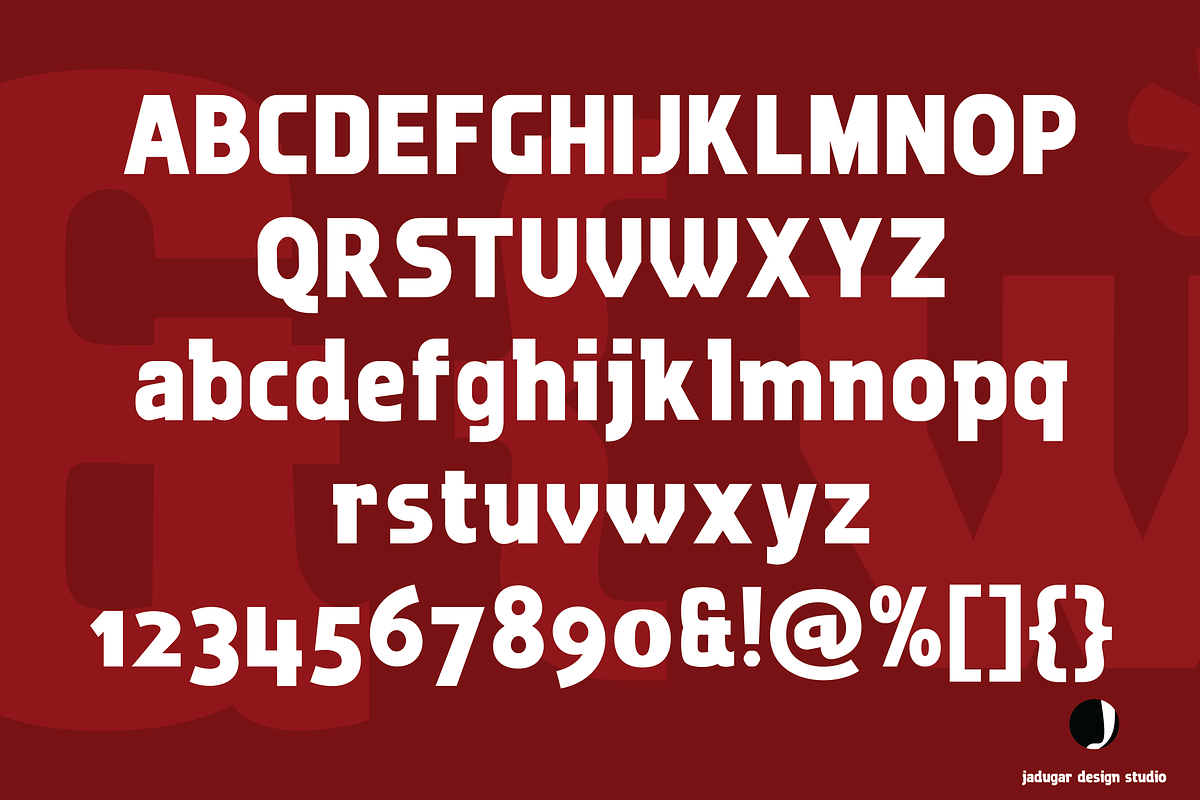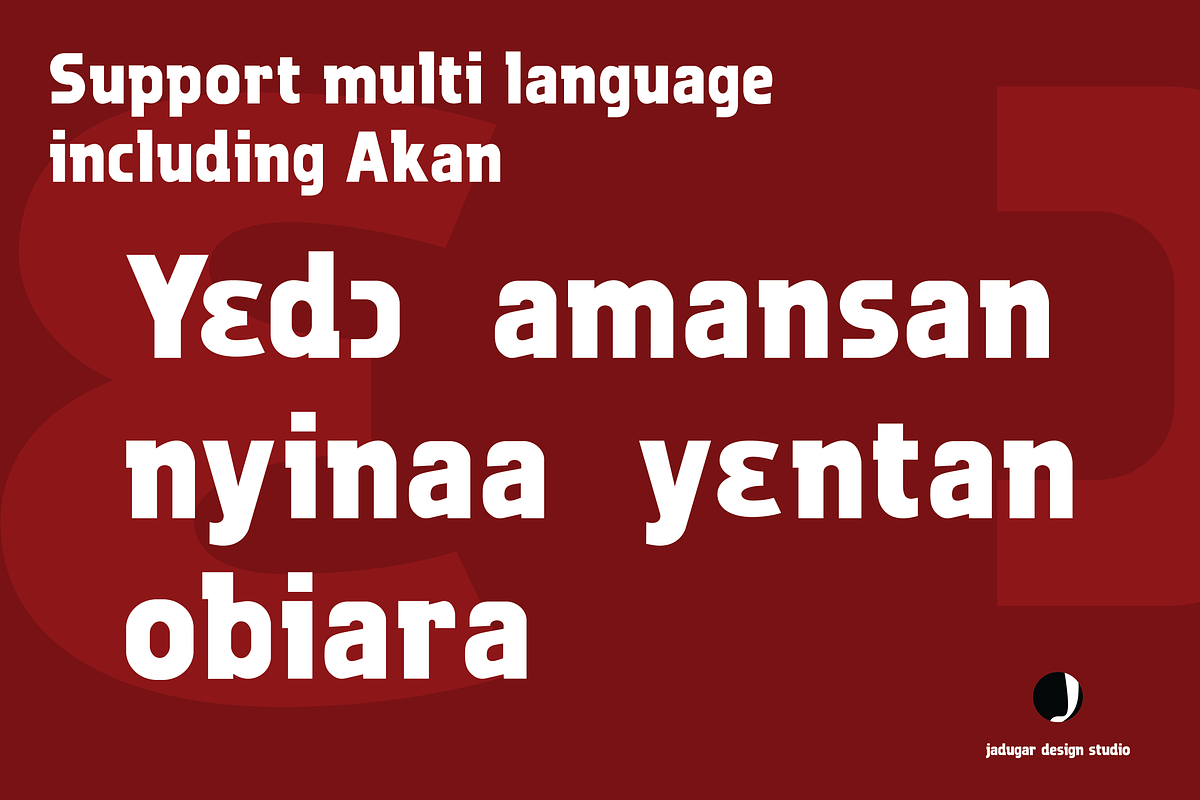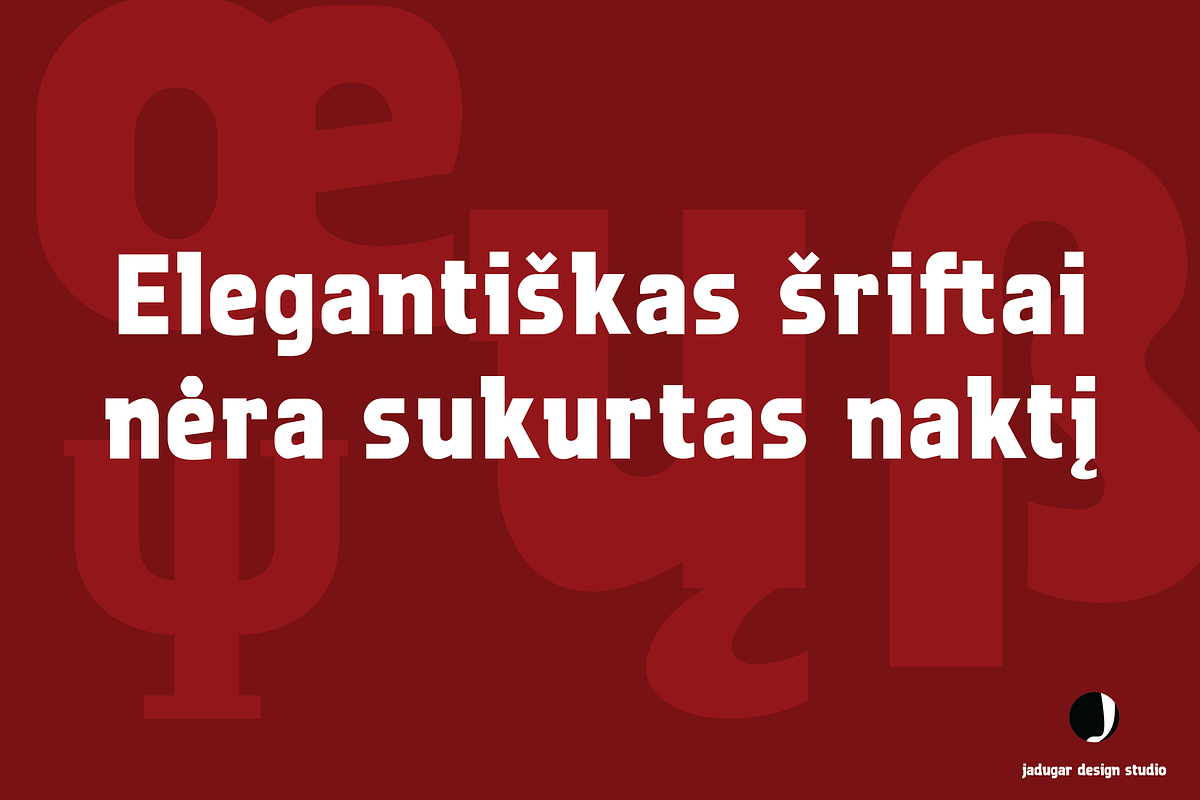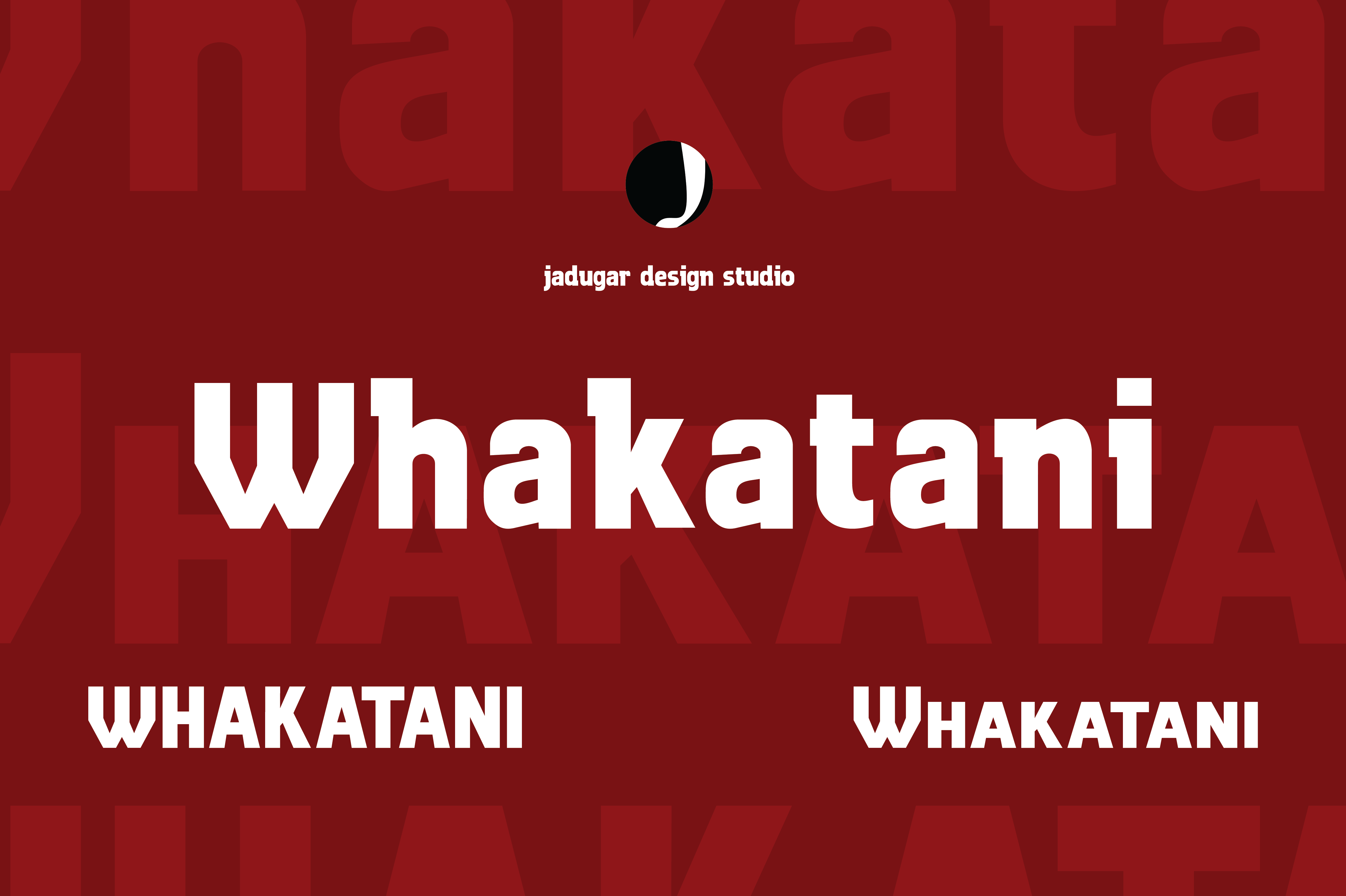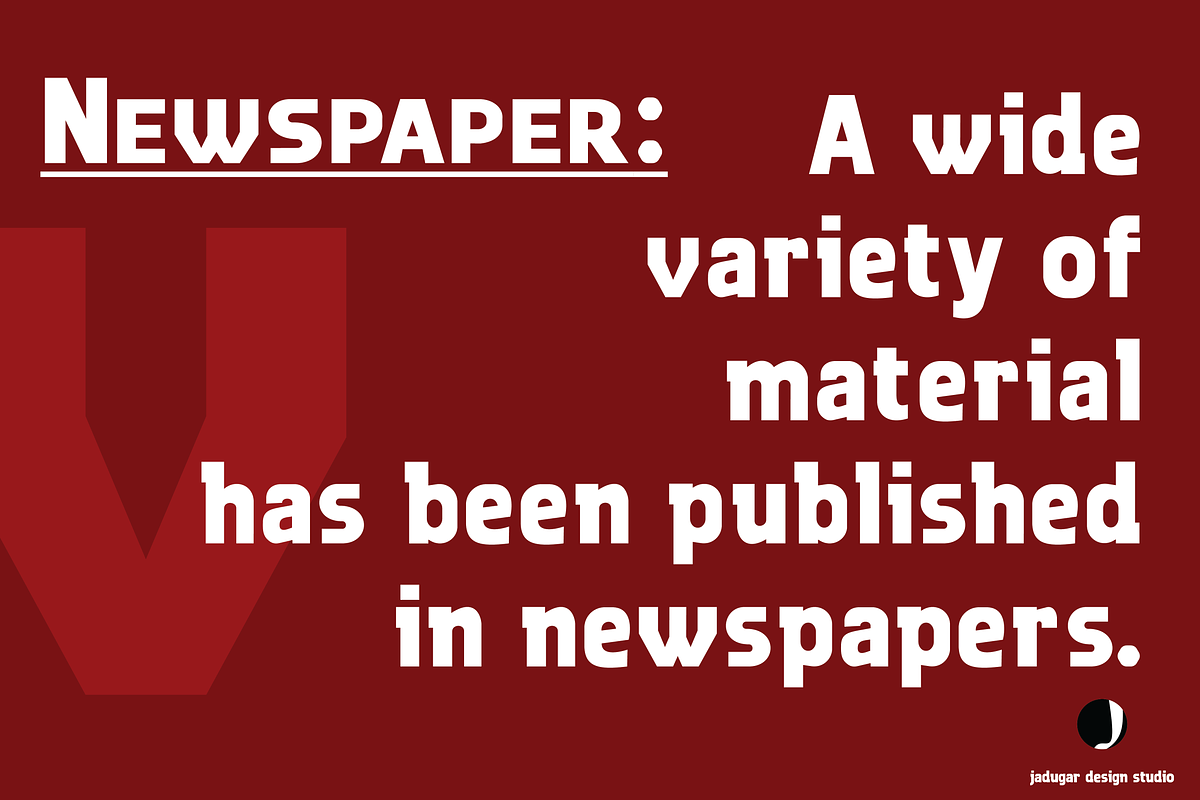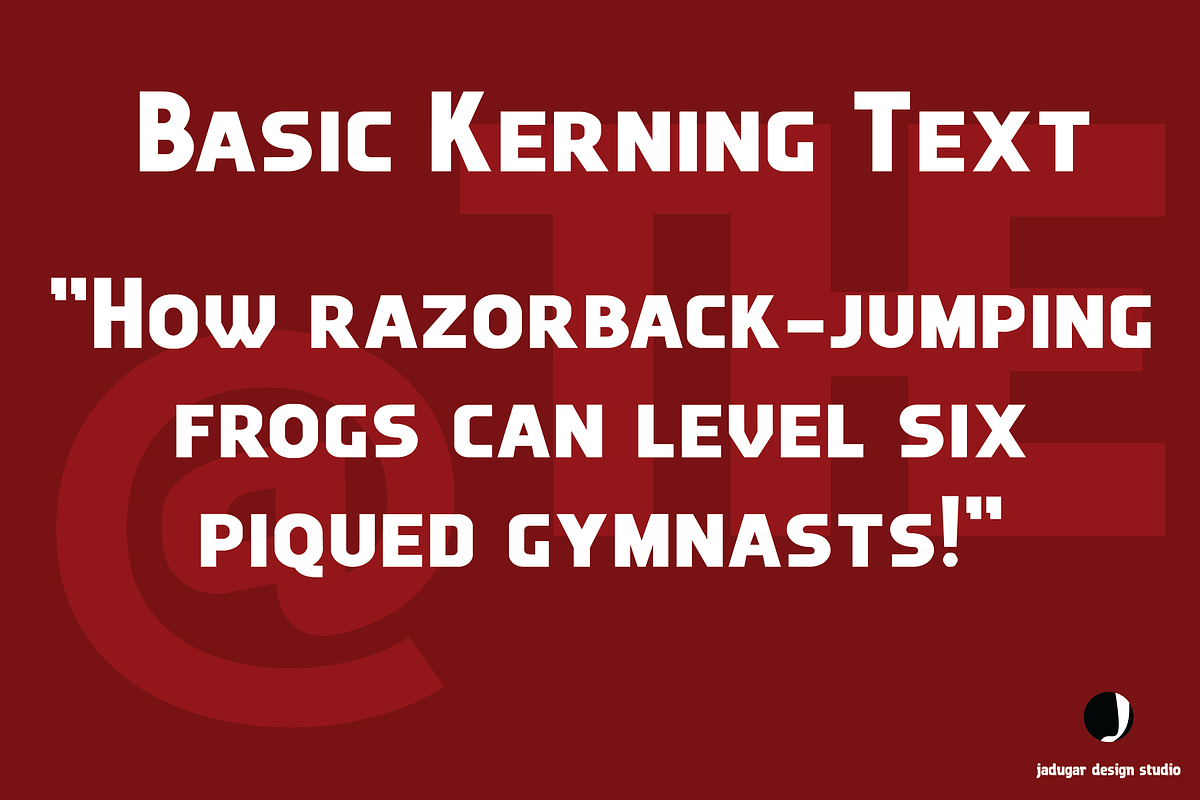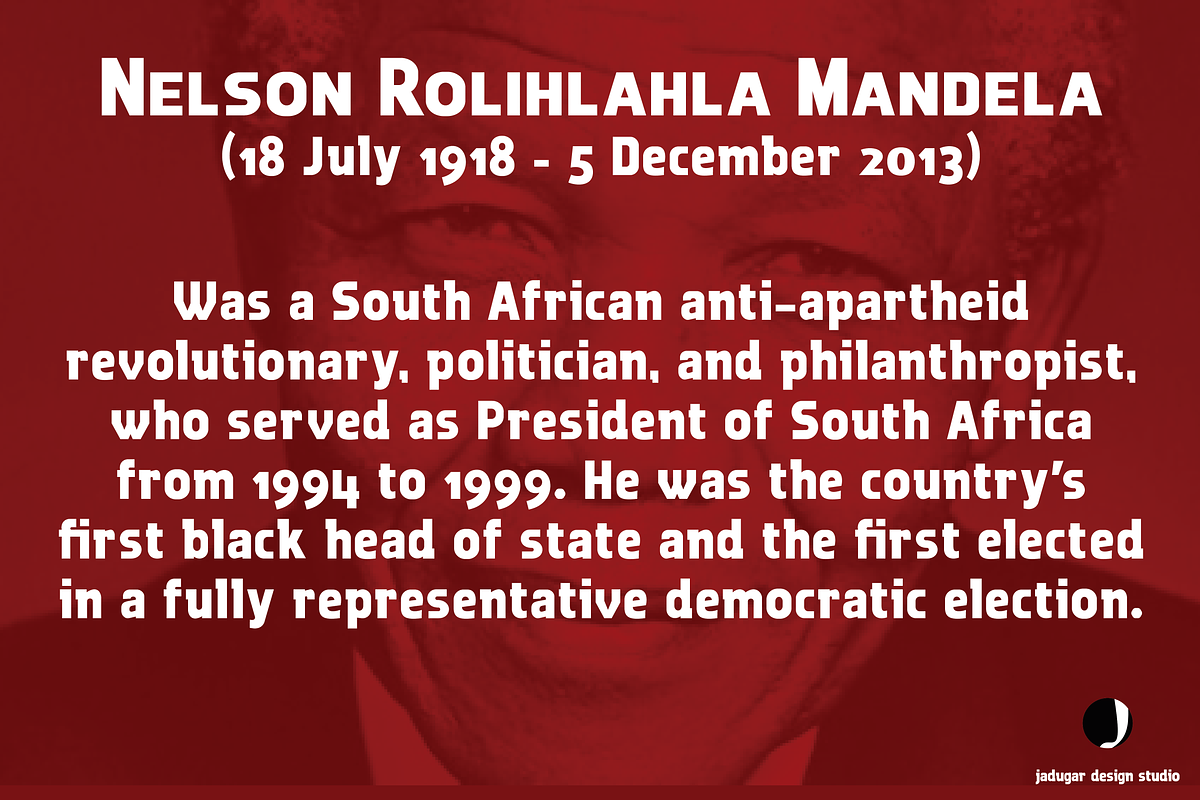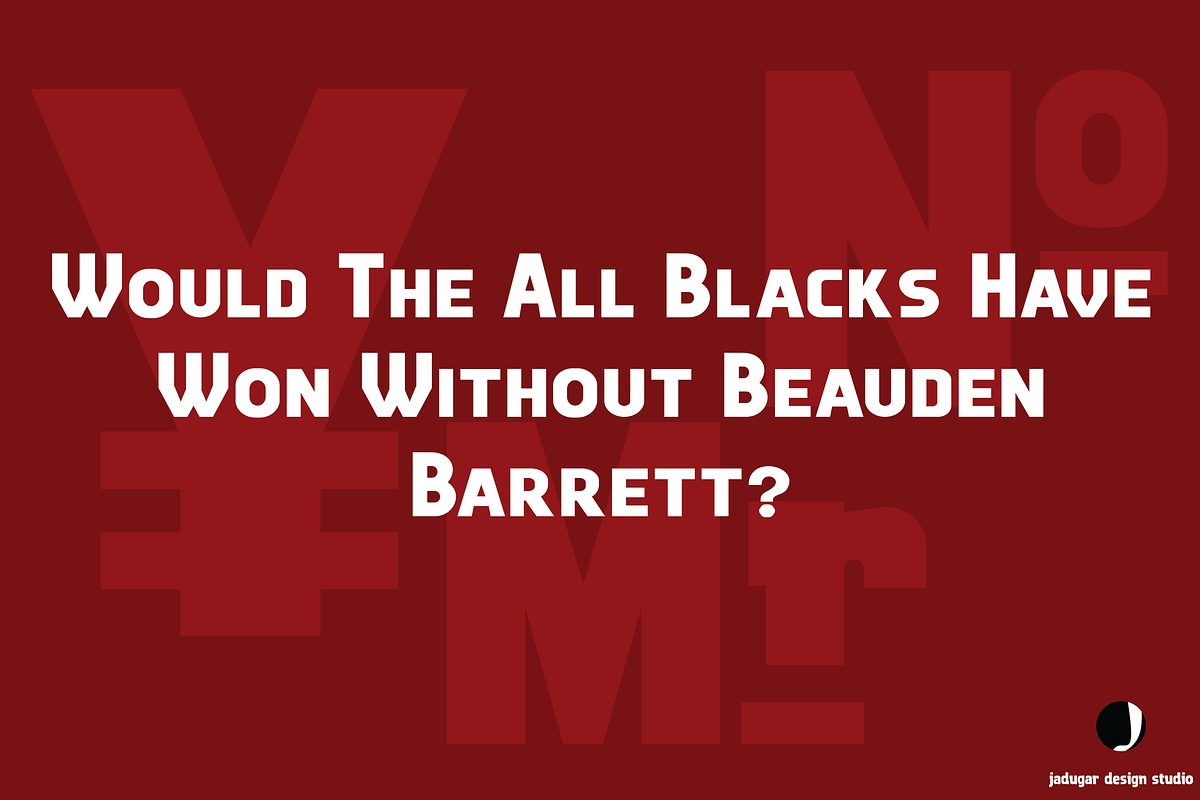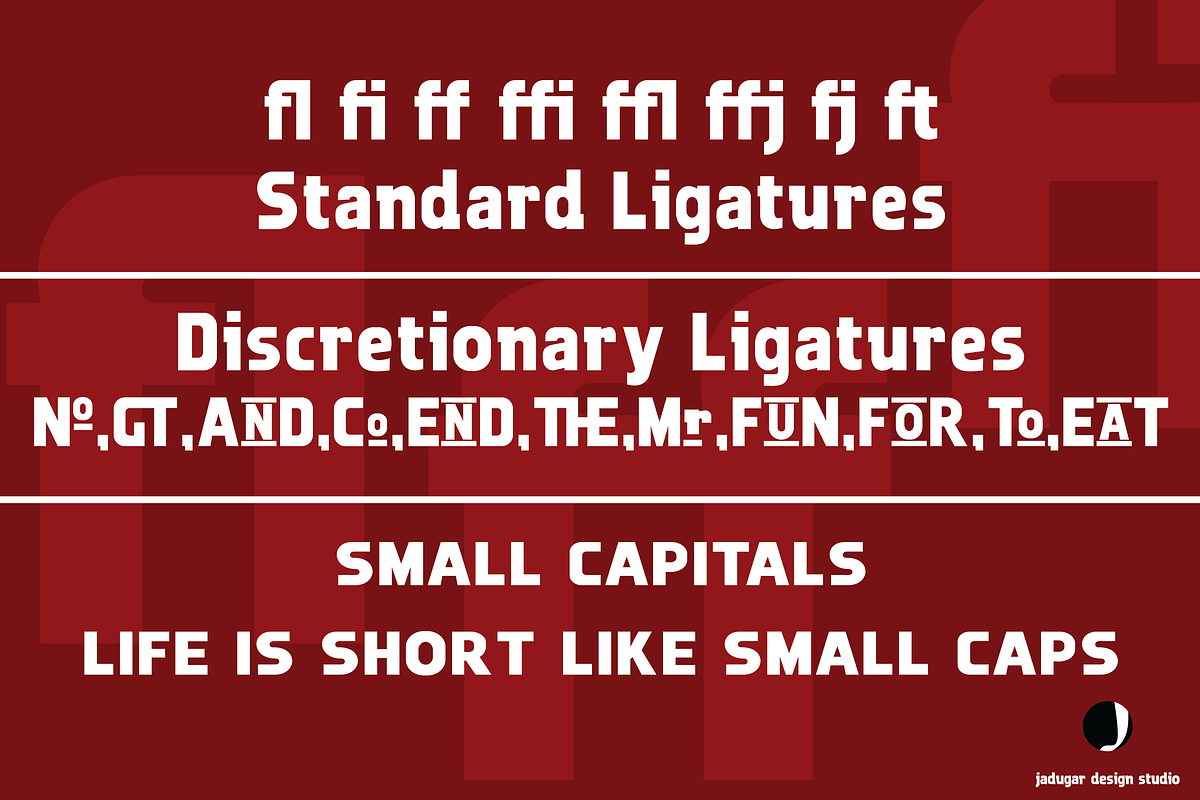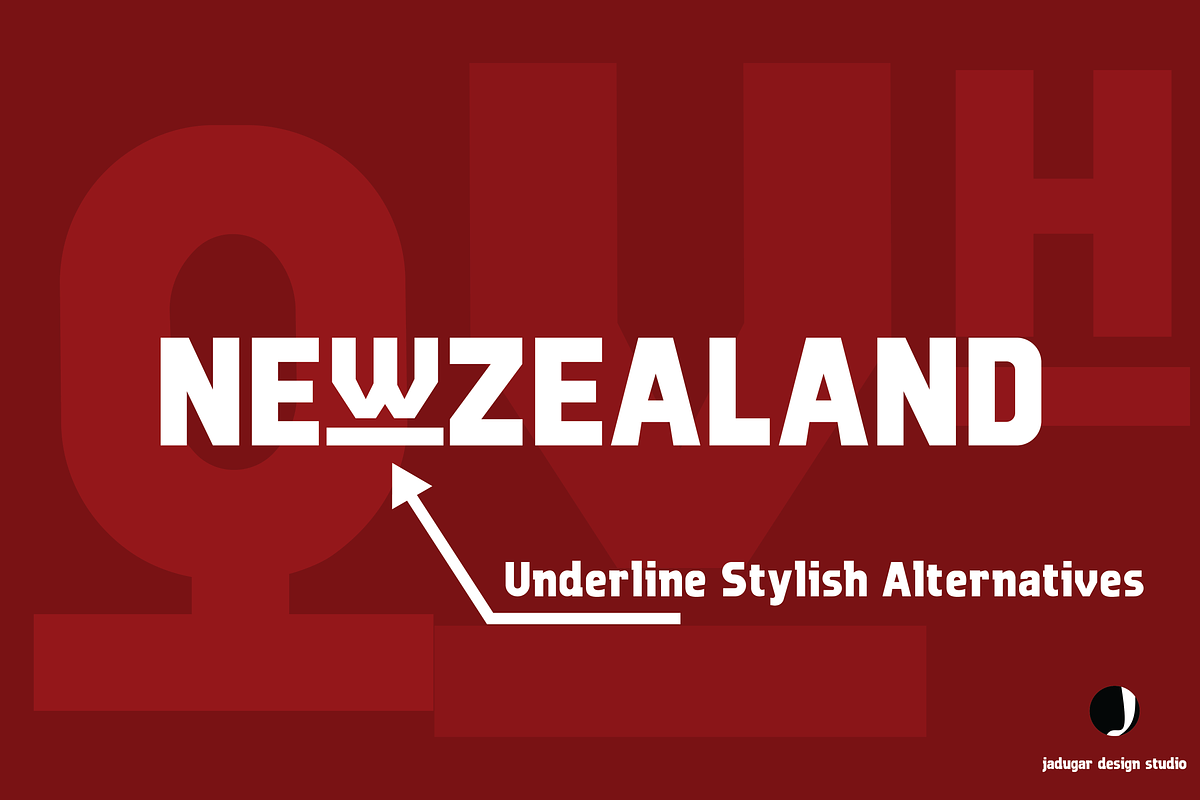
Whakatani Modern Font
Here is one of the elegant font you can imagine "Whakatani" All the letters are beautifully crafted and kerrned. This new fresh font support multi languages. Included open type features to give your project a fresh and elegant look. Try it and enjoy it. It is 50% off for its promo.